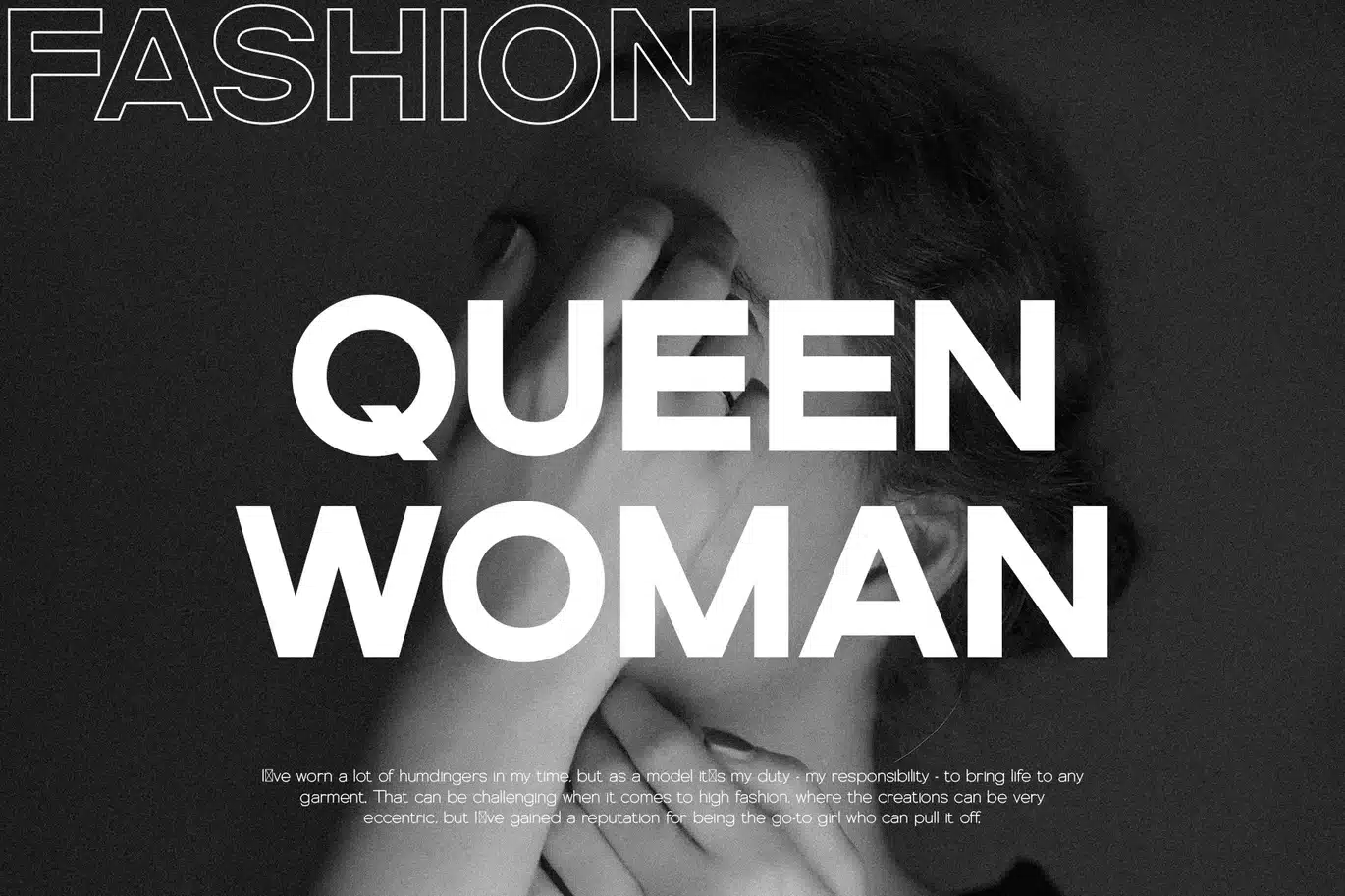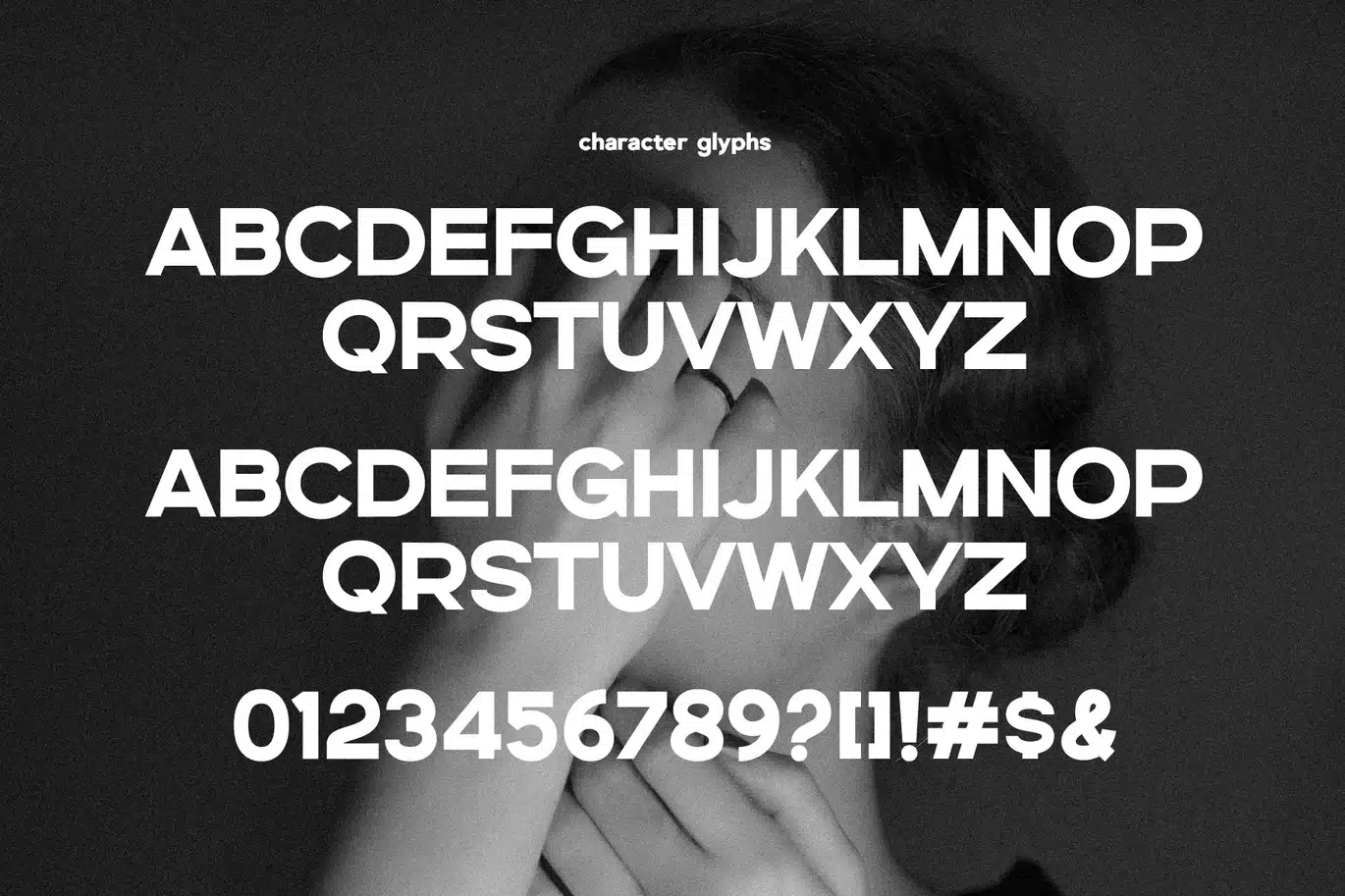
Romero Bold Sans Font Typeface
Romero Bold Sans Font Typeface – Strong, Modern, and Clean
The Romero Bold Sans Font is a strong, modern, and clean sans-serif typeface that commands attention. Its bold weight gives text a powerful presence while maintaining simple and clear letter shapes. Because of this, it works perfectly for headlines, logos, branding, and any design that needs a confident voice.
This font features smooth, geometric forms with even strokes that make reading easy. Its balanced proportions give a neat and tidy look, which fits well in both digital and print projects. Furthermore, the font’s boldness helps it stand out even in busy layouts or small sizes.
What makes Romero special is how it blends strength with simplicity. It avoids unnecessary details, focusing instead on clear lines and shapes. As a result, the font feels fresh and timeless. Whether you use it for posters, websites, or business cards, it adds a modern touch that is easy to pair with other fonts.
Here are the main features of the Romero Bold Sans Font:
Bold weight with clear, simple shapes
Geometric and balanced design
Easy to read in both large and small sizes
Modern and versatile for many projects
Clean lines that give a professional look
In conclusion, Romero Bold Sans is a great choice when you want to create designs that are bold yet clean. It offers a strong visual impact while staying easy on the eyes. Plus, its modern style means it fits a wide range of creative needs.